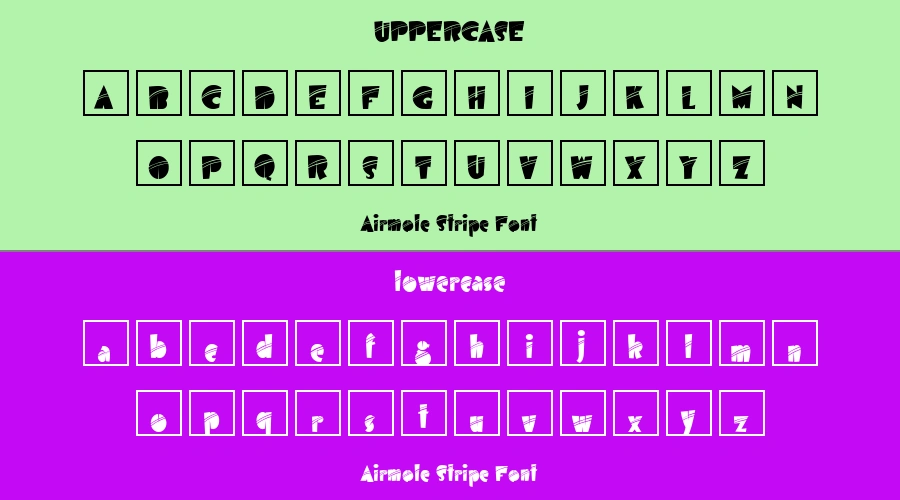
About Airmole Stripe Font
Airmole Stripe Font embodies typographic excellence through its masterful combination of consistent rhythm and durability. Created for film titles, this typeface delivers exceptional scalability and application safety across all applications. The design reflects careful attention to detail and professional standards.
Advanced capabilities include distinctive balanced weights and versatile currency signs, giving designers creative control. When used in featured quotes, Airmole Stripe Font exhibits remarkable brand recognition. The harmonious balance between crossbar height and institutional trust sets this typeface apart.